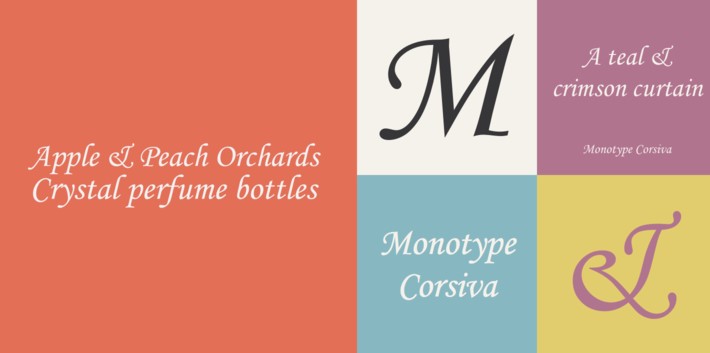
Corsiva Font
Corsiva Font is known for its bold and italic function. This is also known for its text generation function and similar to the monica font.